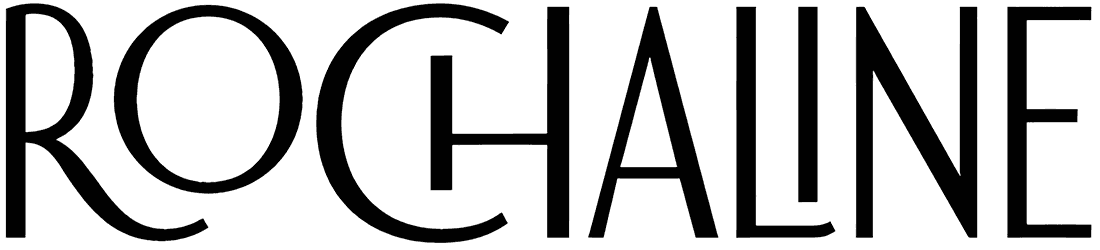
Rochaline Font
Let your words capture the true form of elegance with a chic style that’s brought to you by Rochaline. Made to be at the same level as your first-rate projects, this modern font can make your art look like it’s in a class by itself.
From now on, designing fashionable typography has to come easily to you with such an excellent swash font at hand, for instance, in developing wedding venue websites, coming up with fancy apparel logos, and more.